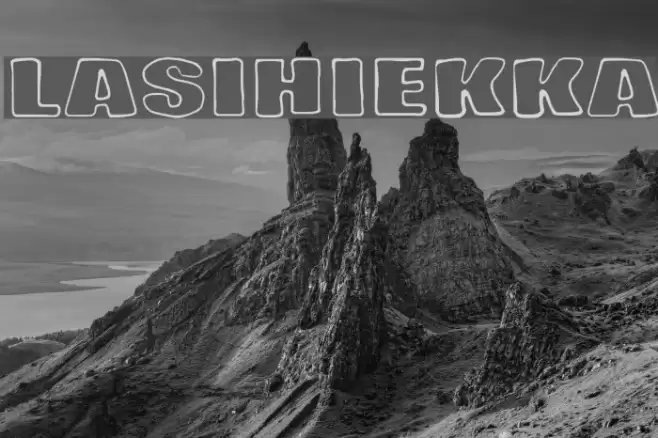
Lasihiekka Font
Lasihiekka Description
This font features bold, blocky characters with a playful, outlined style. The letters are uppercase and have a uniform thickness, giving them a strong presence. The outlines create a hollow effect, making the characters appear as if they are cut out or stenciled. This style is consistent across all letters, numbers, and special characters, providing a cohesive look. The font's design is eye-catching and suitable for projects that require a fun and bold aesthetic.
Bold, outlined font with a playful, blocky style from Uncategorized fonts.
- Overall Style: Playful, Modern